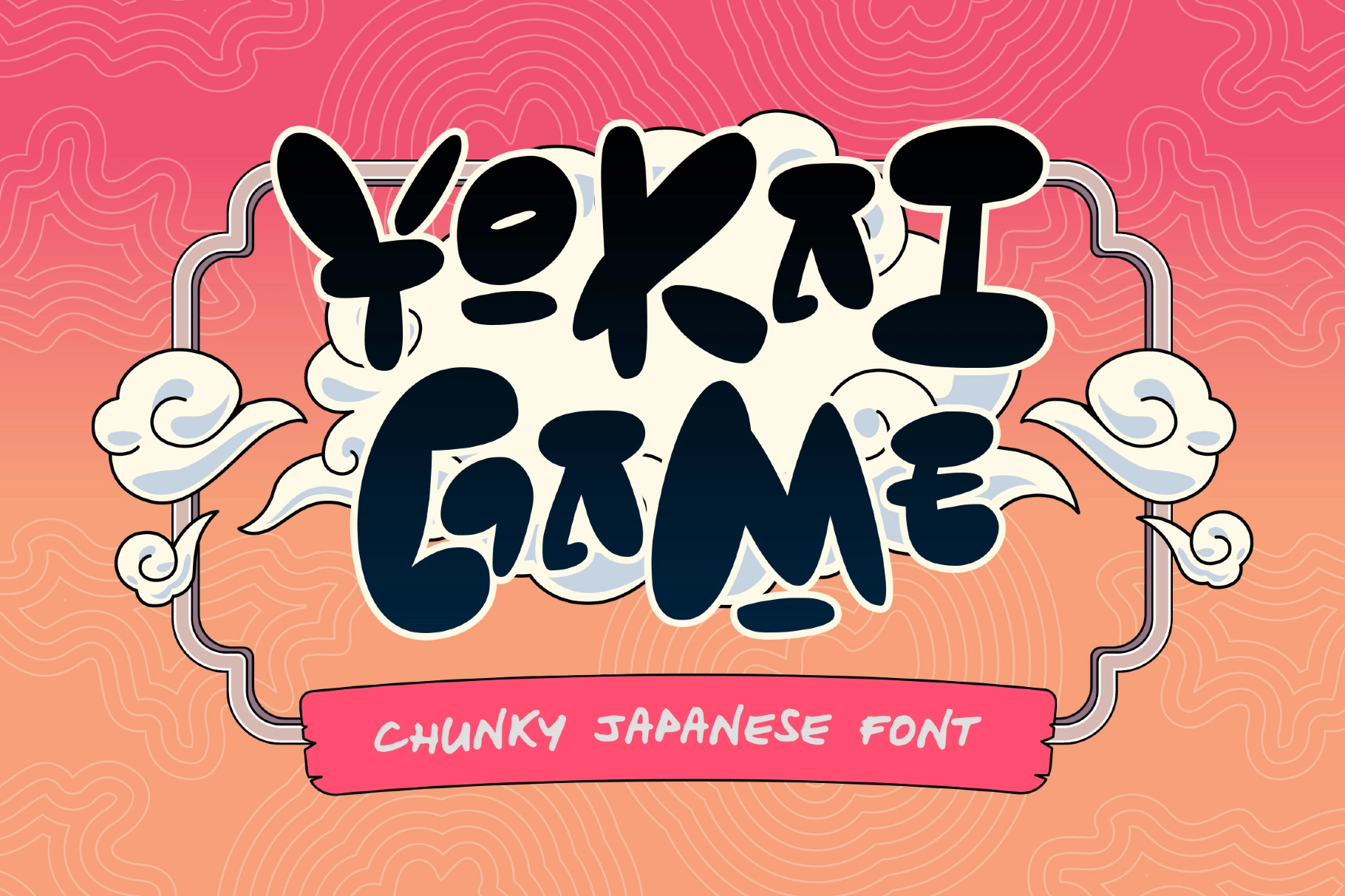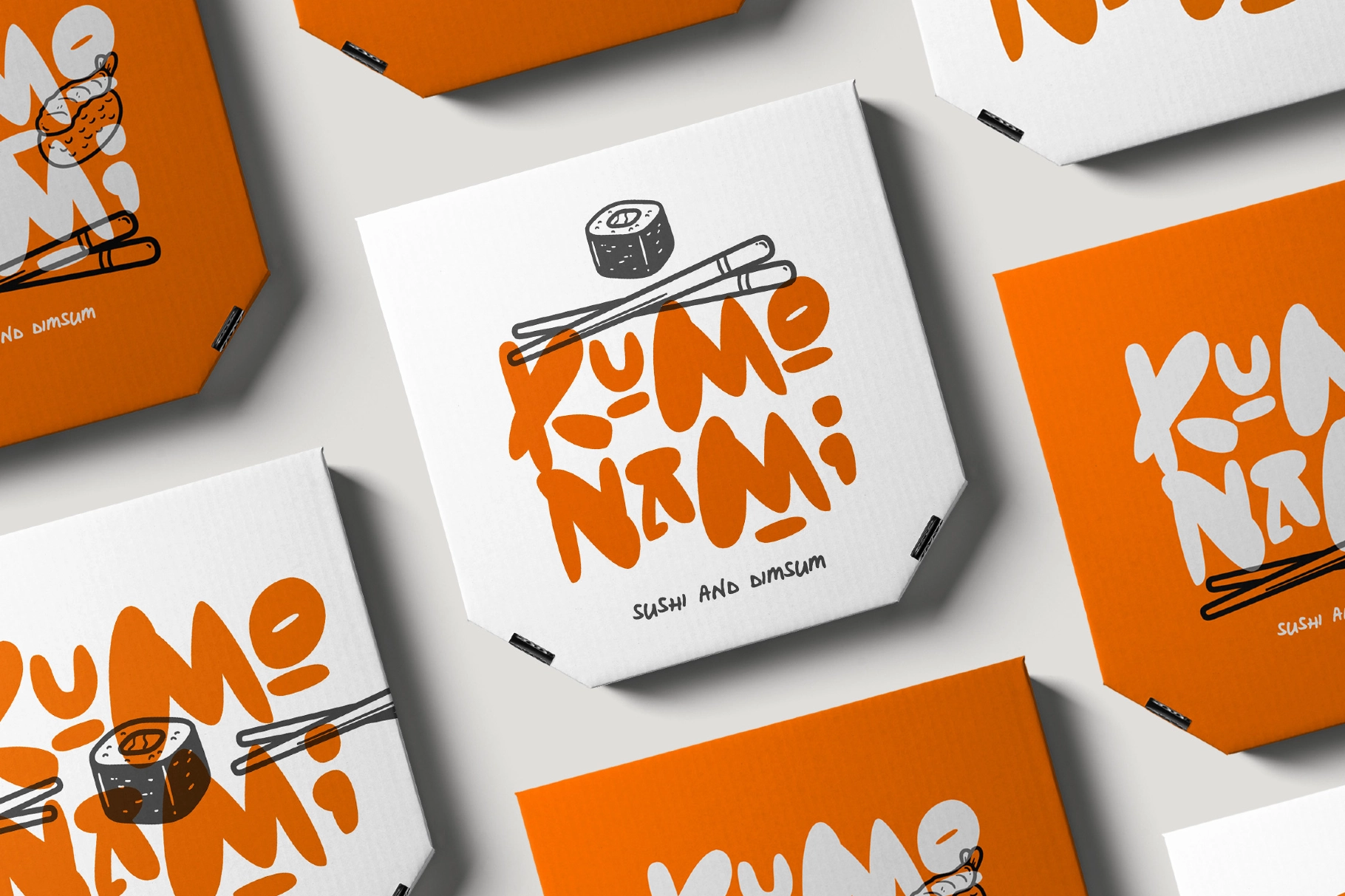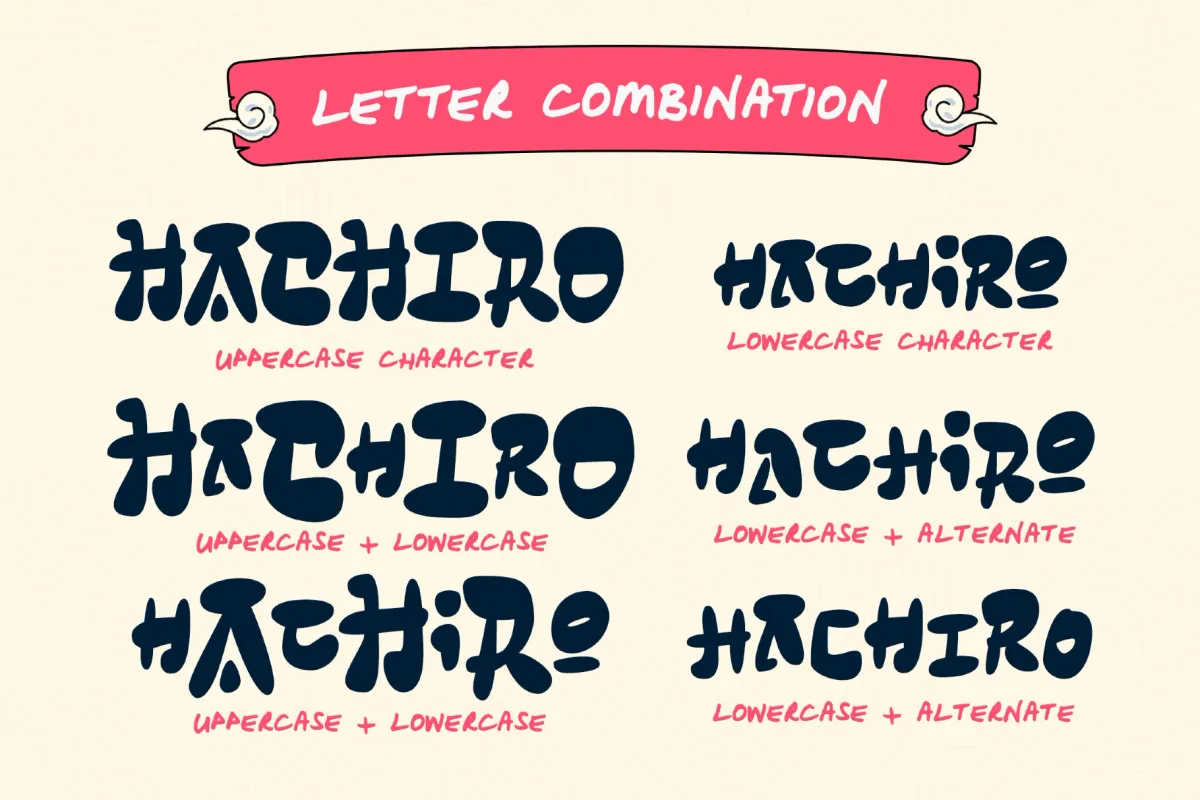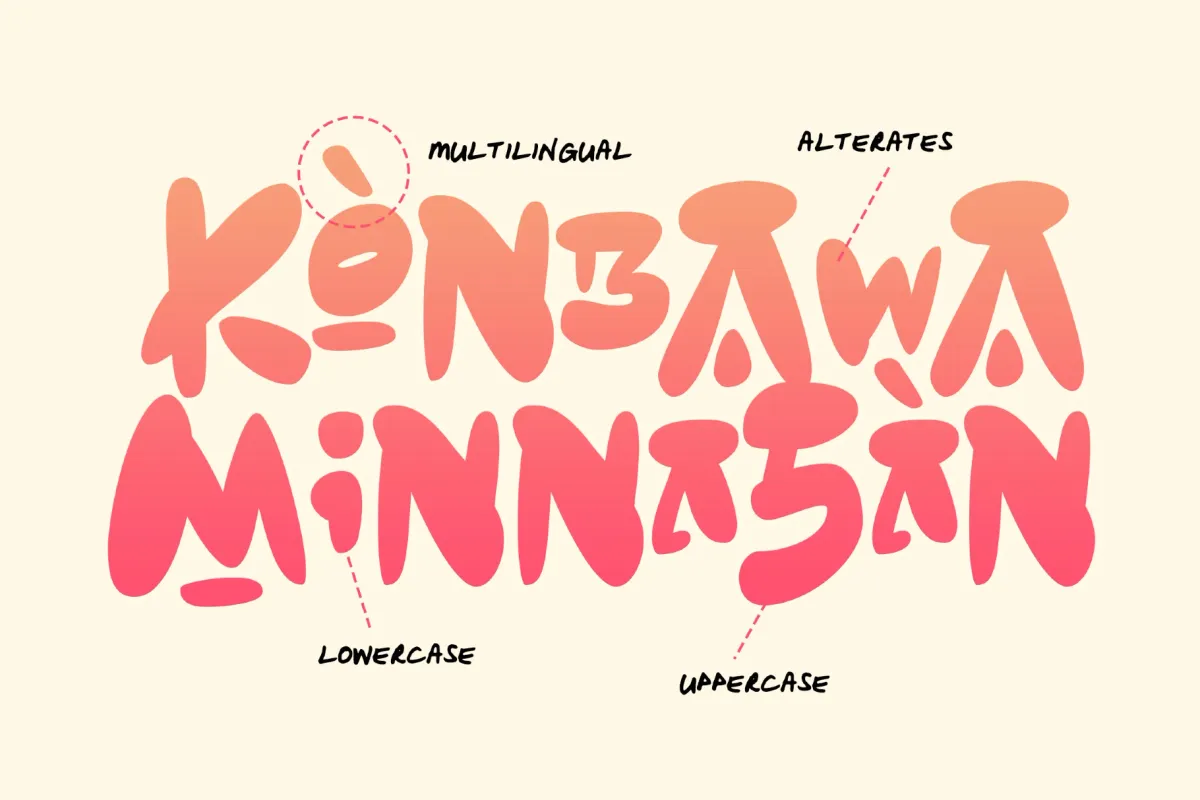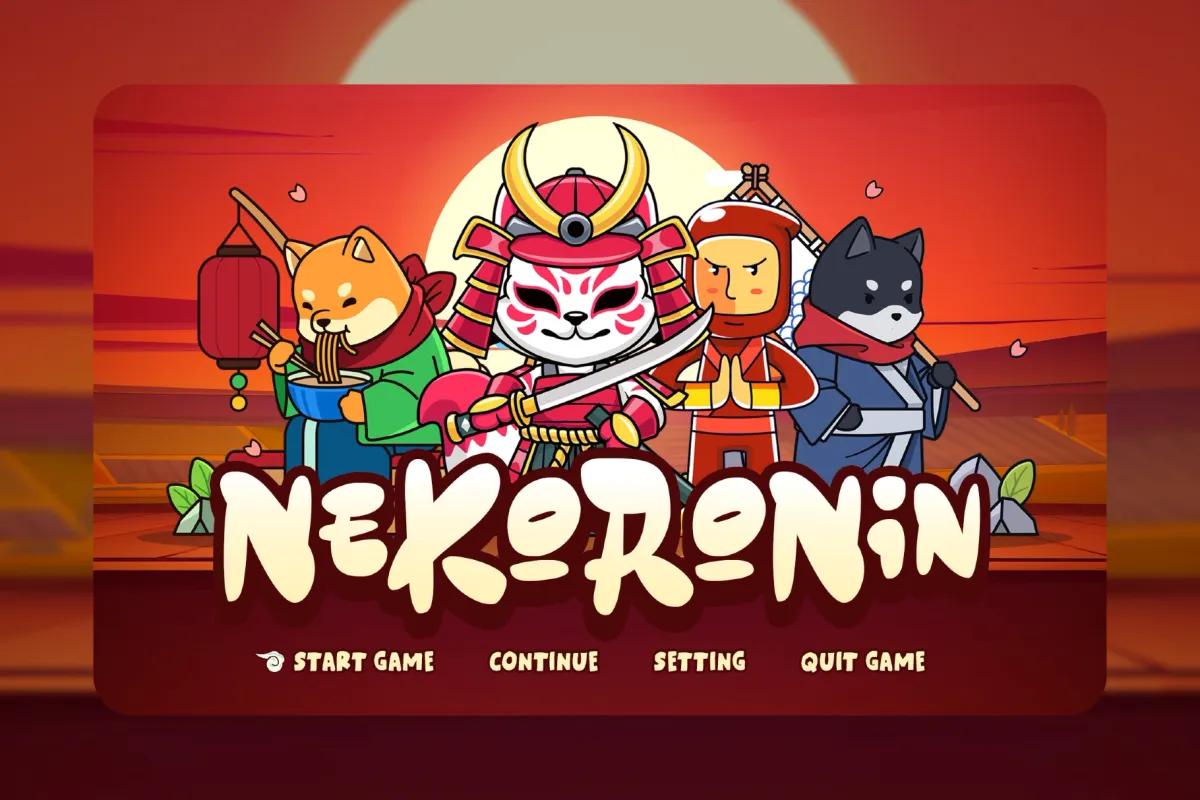
Yokai Game - Japanese Anime Font
Yokai Game is a bold, chunky Japanese artistic font that merges traditional aesthetics with a modern contemporary edge. Its thick, eye-catching characters are a perfect blend of cultural richness and visual appeal. Ideal for logos, branding, packaging, and posters, Yokai is also suited for T-shirt designs, video game titles, comic and anime projects, and book covers, offering a unique Japanese flair to any creative endeavor. It performs excellently on both print and digital platforms.
Yokai Game font is crafted to balance traditional and modern design elements, ensuring optimal readability while maintaining its artistic, chunky style. Integrate the distinct power of Yokai into your designs today.